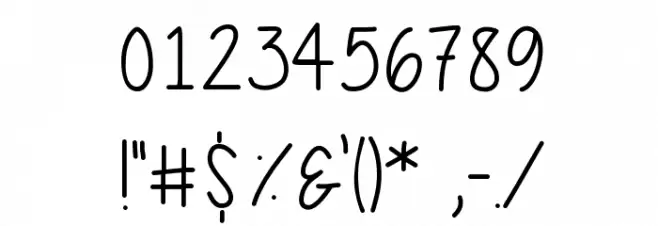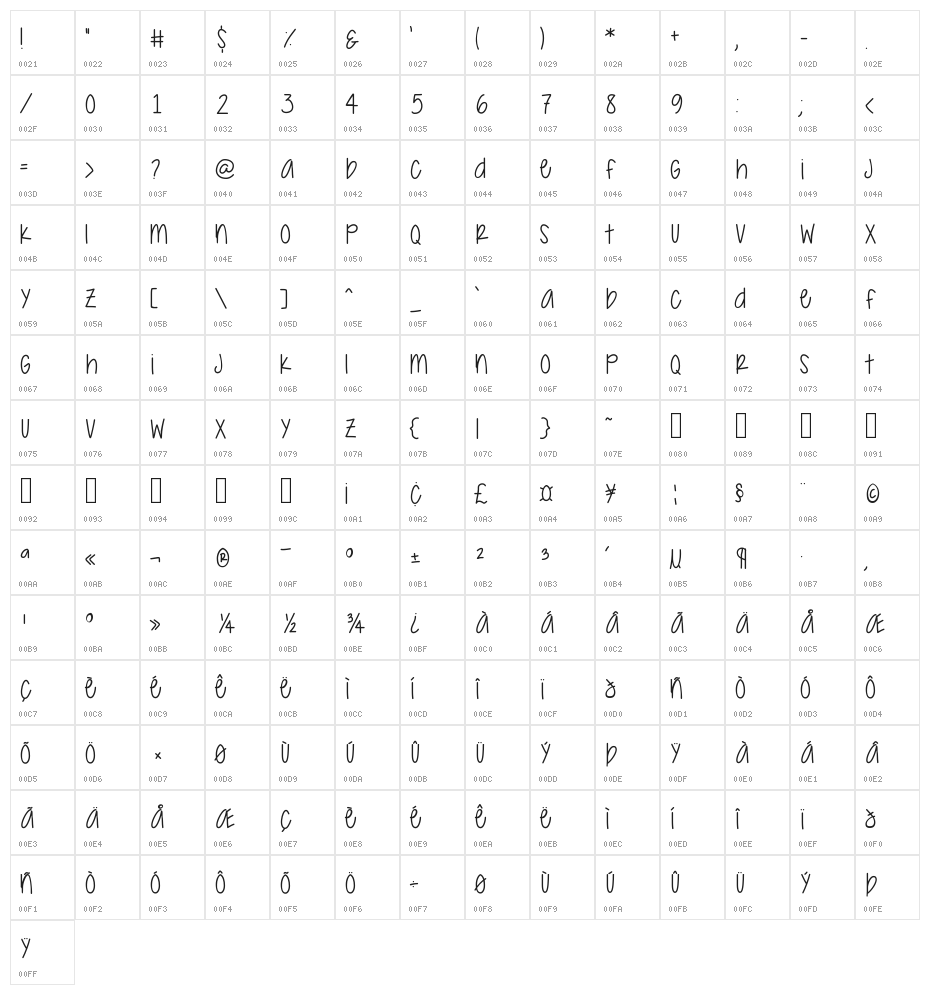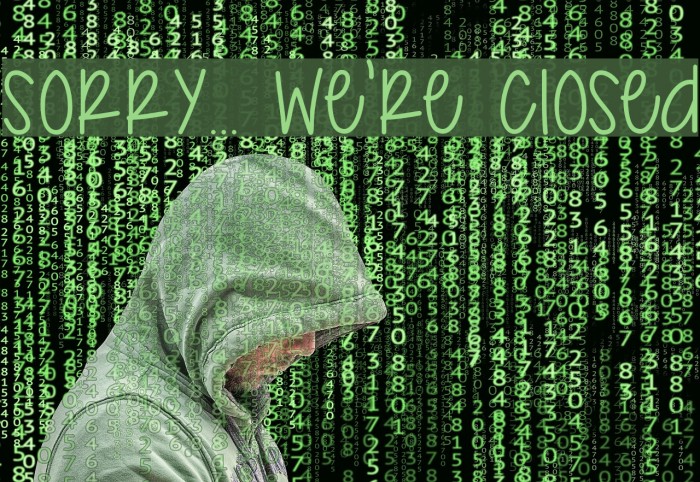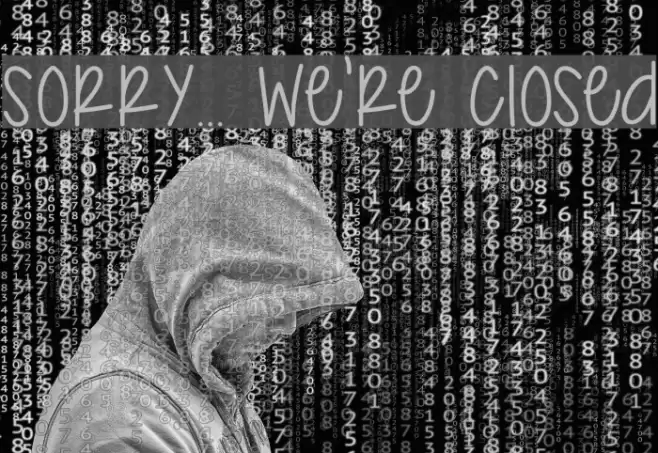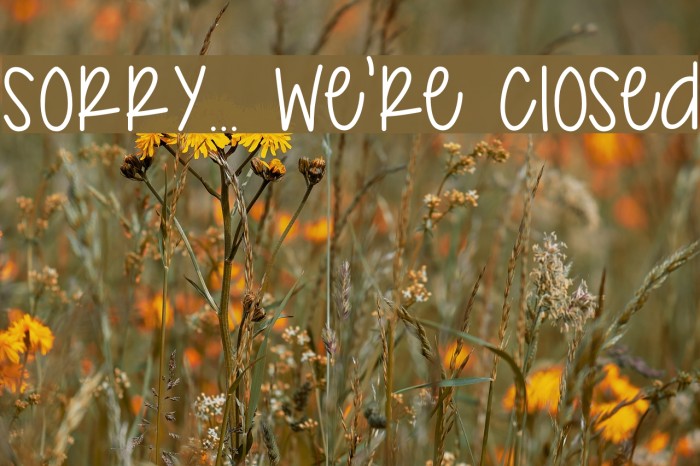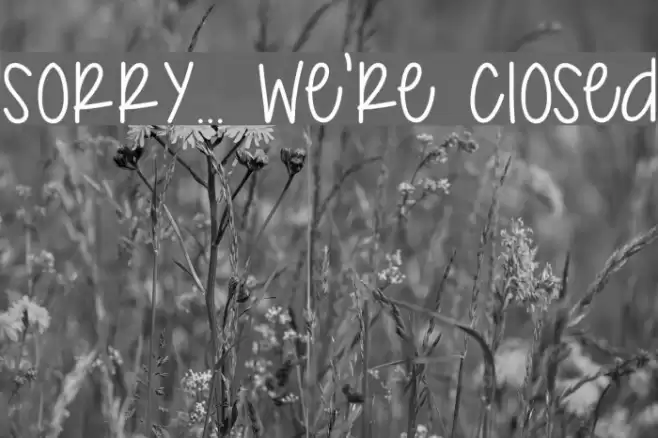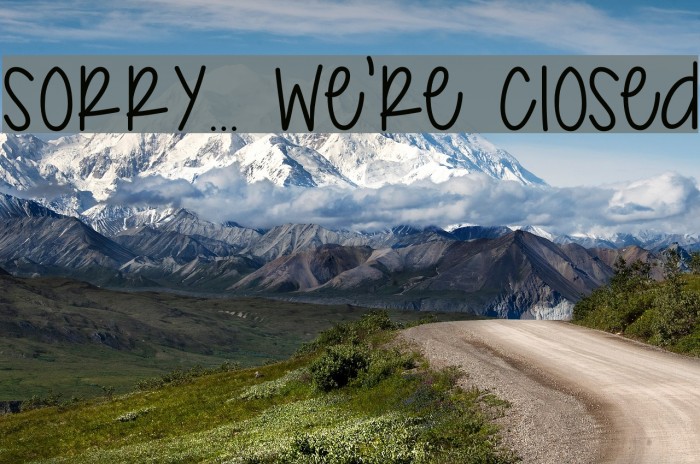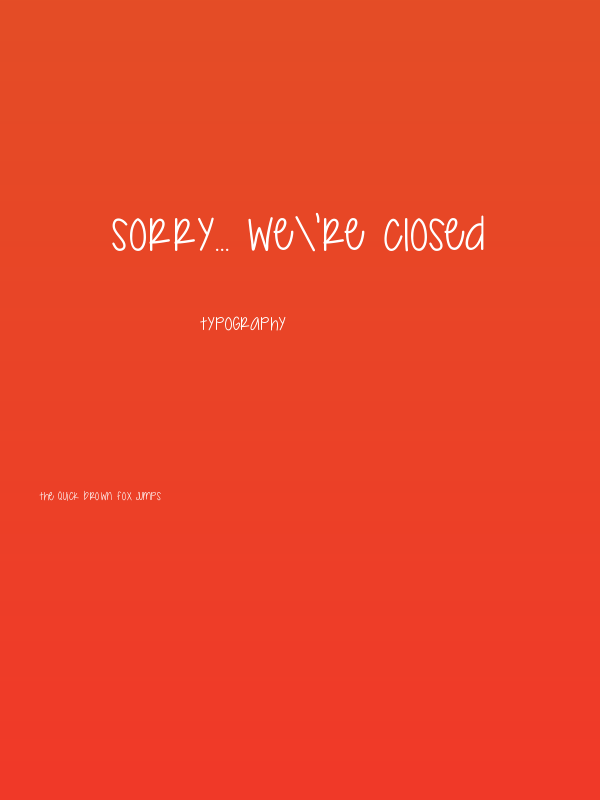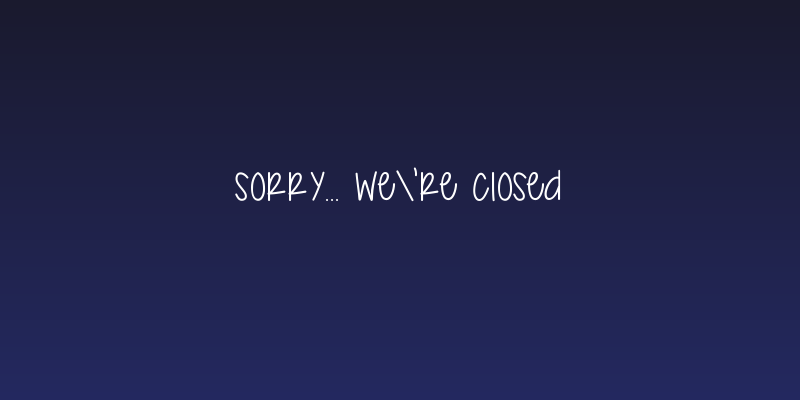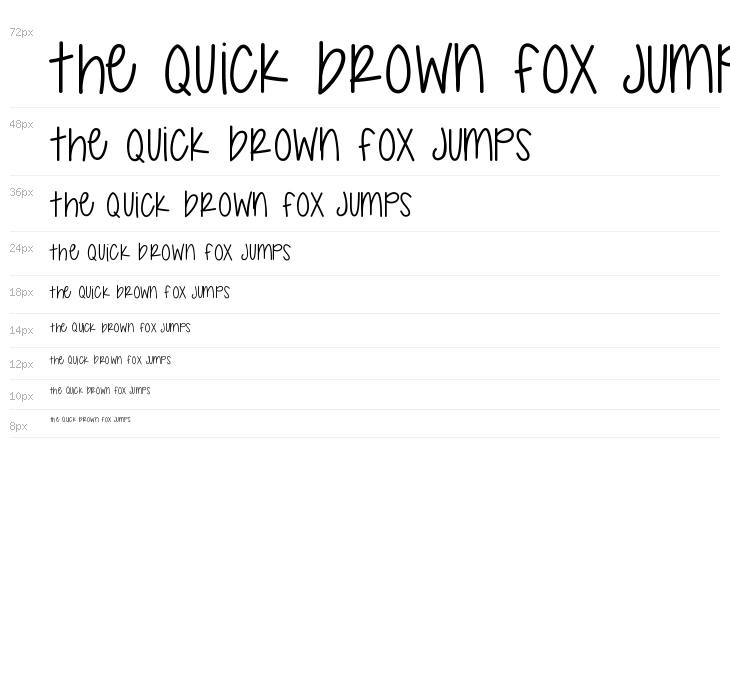
Sorry... We're Closed Font
Sorry... We're Closed Description
This playful and informal handwritten font features smooth, rounded strokes that give it a friendly and approachable appearance. The characters are slightly slanted, adding a casual and dynamic feel. The uppercase and lowercase letters maintain a consistent style, with a slight variation in height and width that enhances its organic look. The numerals and special characters are designed to match the overall aesthetic, ensuring a cohesive appearance across all text. This font is perfect for projects that require a personal touch, such as greeting cards, invitations, or social media graphics.
Overall StyleCasual, Playful
Use CaseHeadlines, Logos, Informal Text
Proposed ProjectsIdeal for greeting cards, invitations, social media graphics, and personal branding.